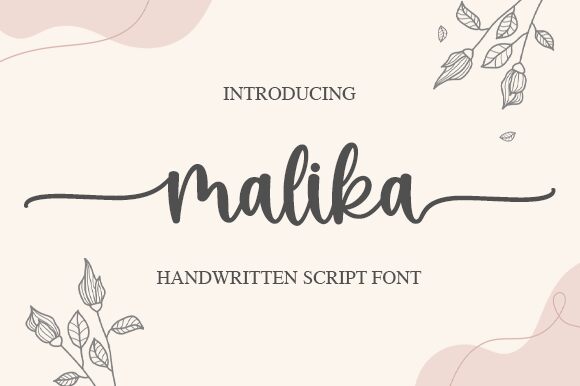
Malika
Malika, a beautiful handwritten font designed by Graphix Line Studio, is the perfect addition to any project that requires a touch of elegance and sophistication. Its refined strokes and graceful curves make it an ideal choice for wedding invitations, fashion magazines, branding materials, and much more. With its semi-bold weight and narrow width, this font stands out beautifully against any background or color palette. Whether you're looking to create something whimsical or chic, Malika's exquisite style is sure to make your next project shine.